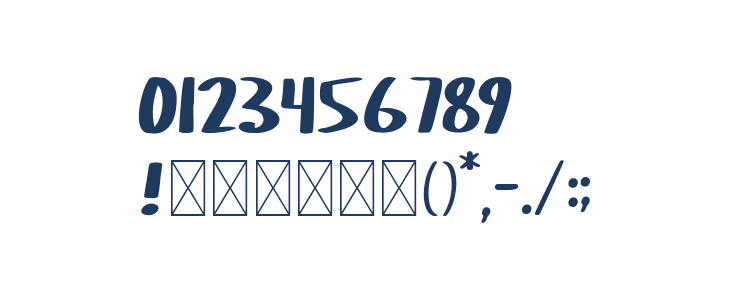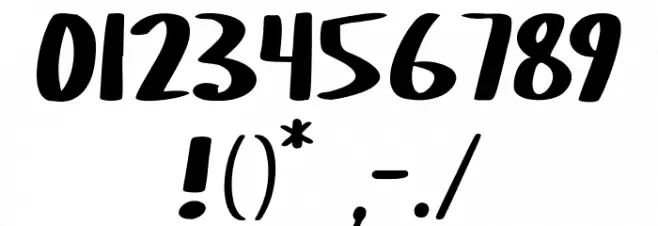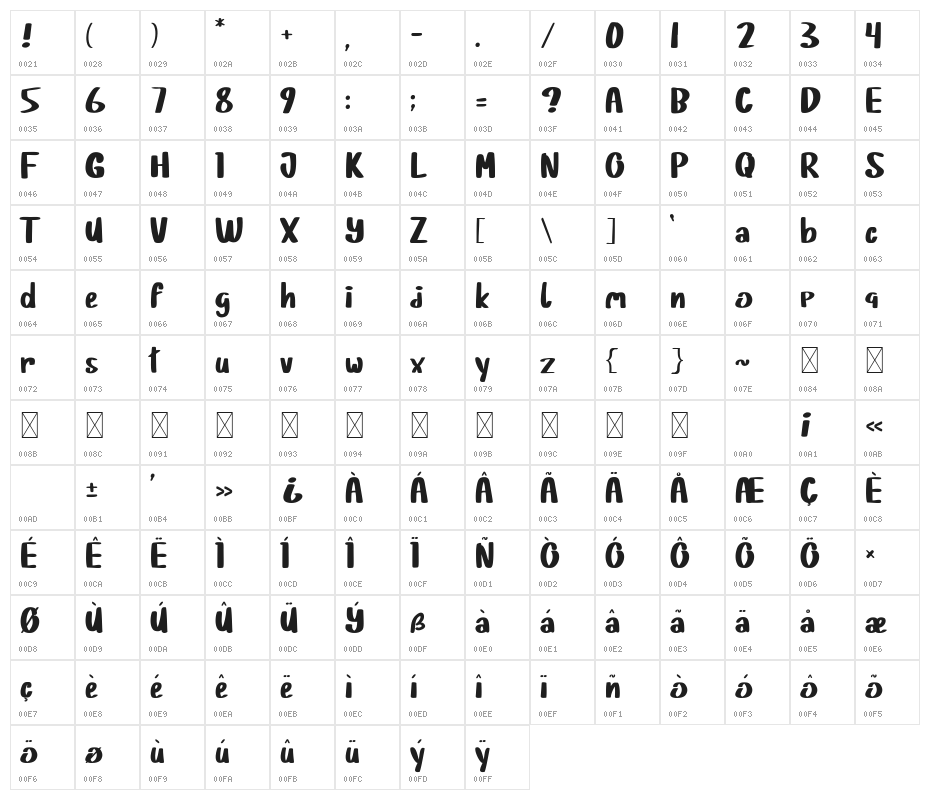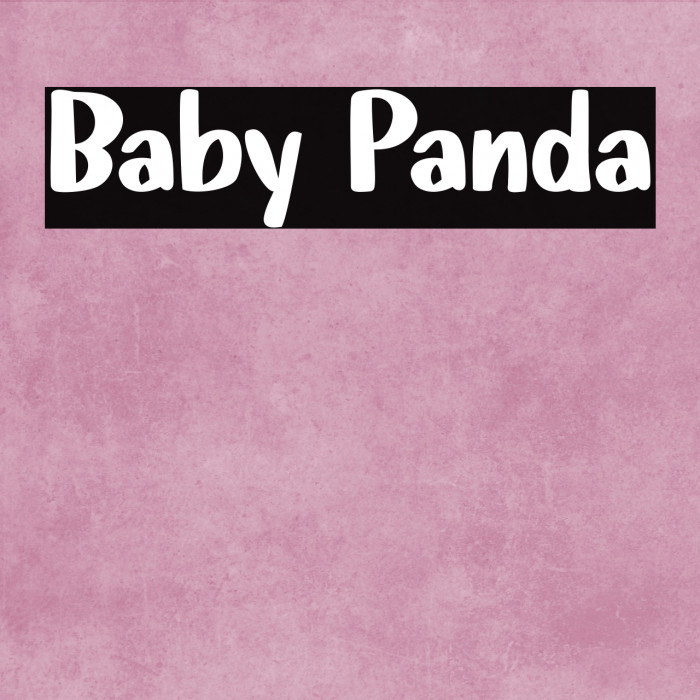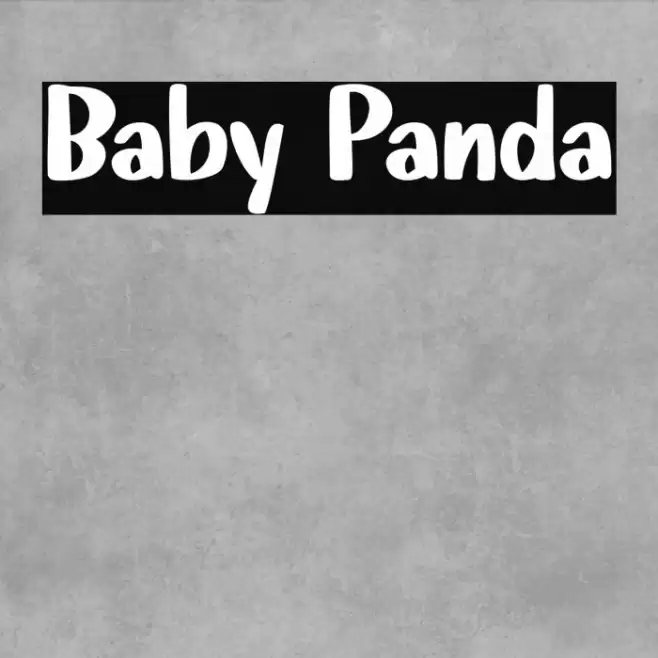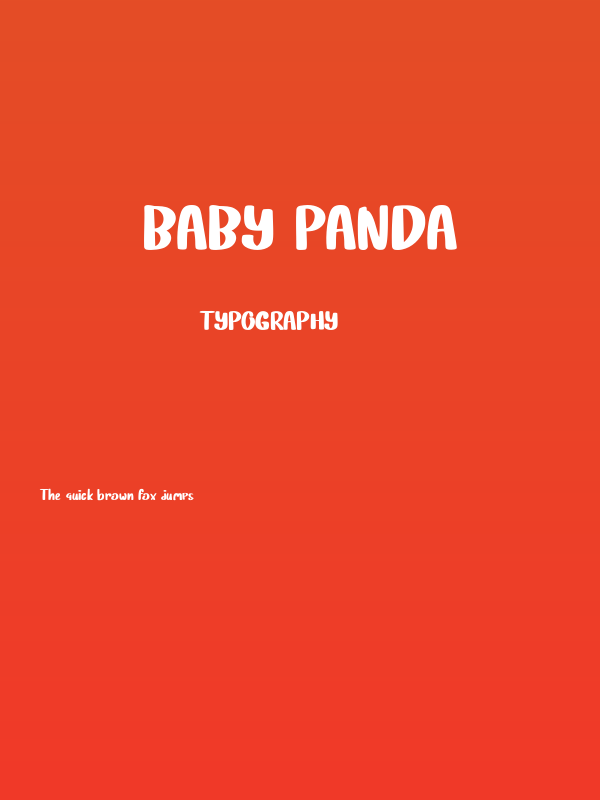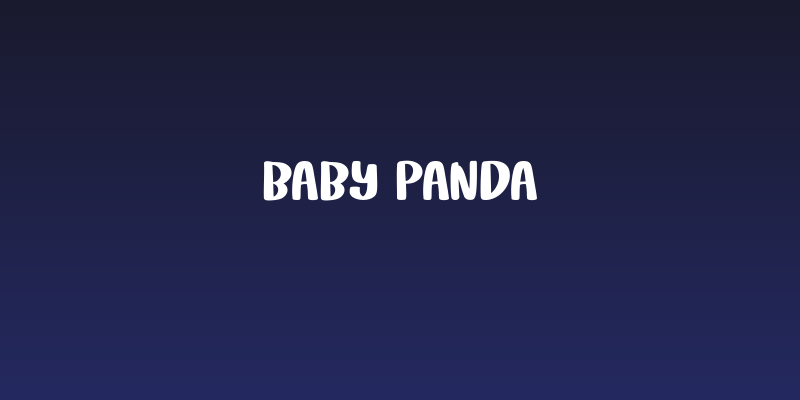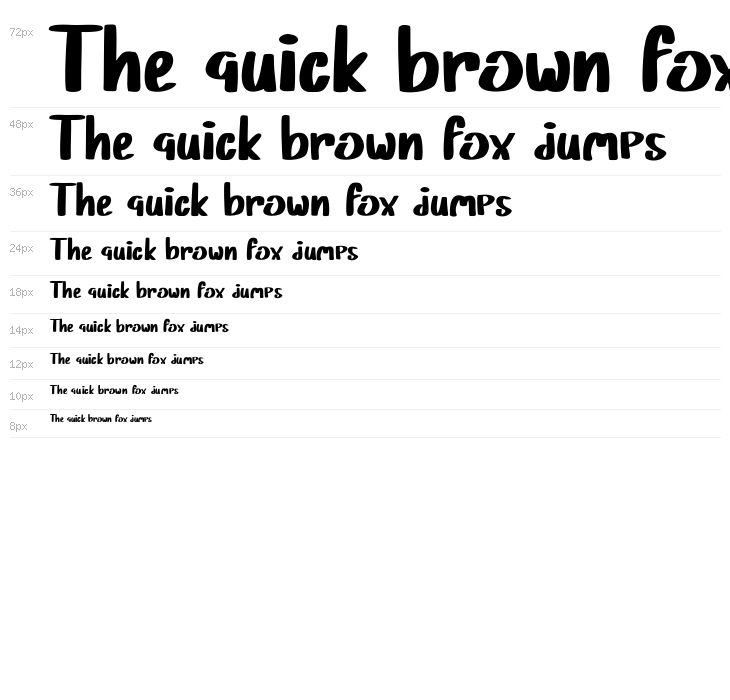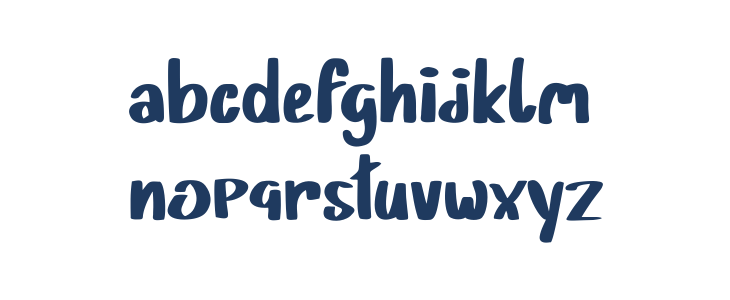
Baby Panda Font
Baby Panda Description
This playful and bold font features rounded, thick strokes that give it a friendly and approachable appearance. The characters are slightly irregular, adding a whimsical touch that makes it perfect for informal and fun designs. The uppercase and lowercase letters maintain a consistent style, with smooth curves and a slightly condensed form. Numbers and special characters are designed to match the playful aesthetic, ensuring a cohesive look across all text elements. The font's unique style makes it stand out, making it ideal for projects that require a touch of personality and charm.